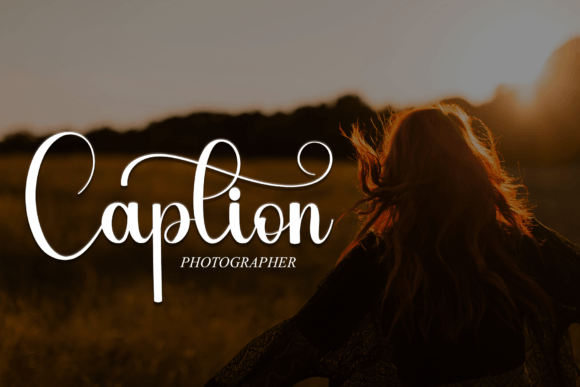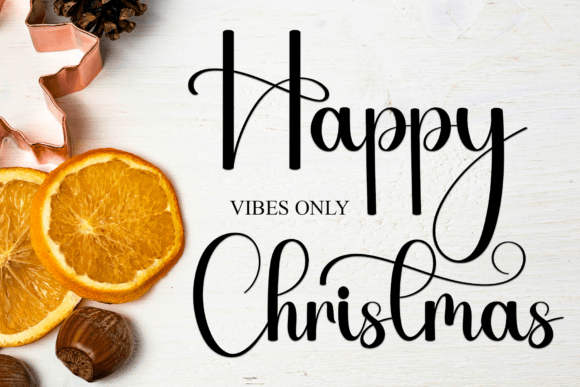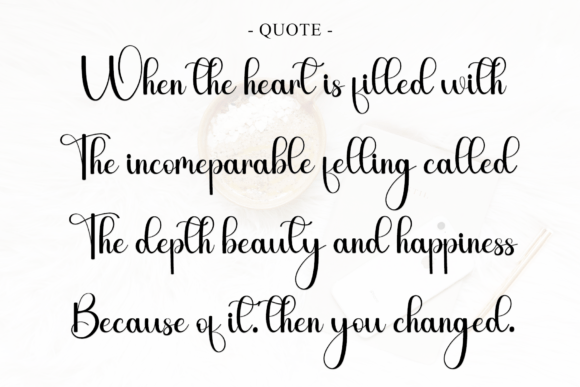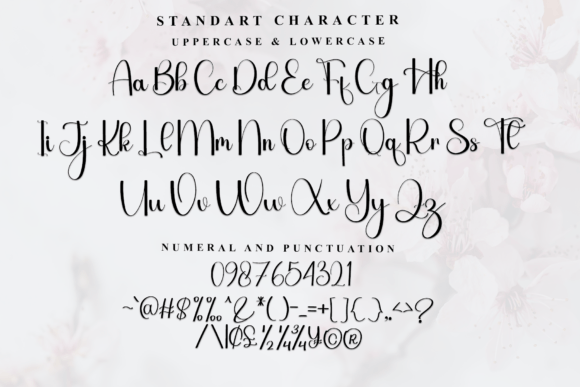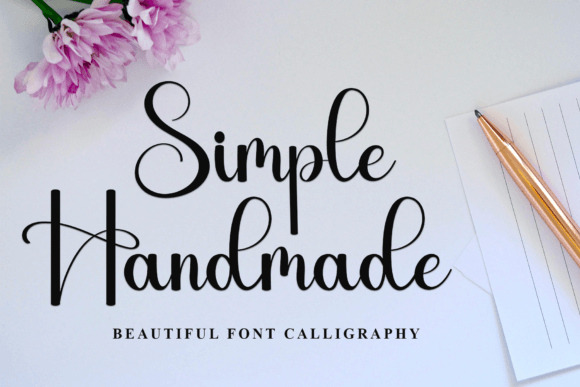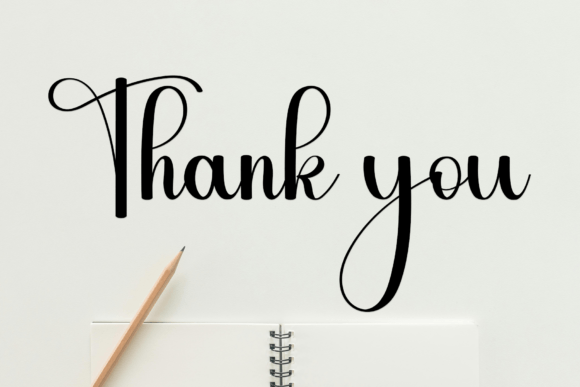
Introducing Christmas Wonderful Font: A Timeless Handwritten Delight
Are you looking for a font that captures the essence of the holiday season? Or perhaps you need a stylish and elegant font for your design projects? Look no further than Christmas Wonderful Font, a lovely and timeless handwritten font that’s perfect for creating eye-catching logos, branding, and quotes.
A Unique and Beautiful Touch
What sets Christmas Wonderful Font apart is its unique and beautiful touch. Every letter has been carefully crafted to bring a sense of warmth and personality to your designs. The font’s handwritten style gives it a personal and approachable feel, making it perfect for designers and crafters who want to add a touch of elegance and sophistication to their work.
Whether you’re a designer, crafter, or DIY enthusiast, Christmas Wonderful Font is the perfect choice for your next project. The font’s versatility makes it suitable for a wide range of applications, including:
- Logos and branding: Create a lasting impression with a custom logo that showcases your brand’s personality.
- Quotes and posters: Add a touch of elegance to your inspirational quotes and posters.
- Stationery and invitations: Create beautiful stationery and invitations that set the tone for any occasion.
- Digital and print media: Use the font in your digital and print media, such as brochures, flyers, and social media graphics.
Why Choose Christmas Wonderful Font?
So why choose Christmas Wonderful Font over other fonts? Here are just a few reasons:
- Unique and beautiful design: The font’s handwritten style and unique touches make it stand out from other fonts.
- Versatility: The font is suitable for a wide range of applications and can be used for both personal and commercial projects.
- Timeless appeal: The font’s classic design ensures it will remain stylish and relevant for years to come.
Tips for Using Christmas Wonderful Font
To get the most out of Christmas Wonderful Font, here are a few tips:
- Experiment with different sizes and colors: The font looks great in a variety of sizes and colors, so don’t be afraid to experiment and find the perfect combination for your design.
- Use the font’s glyphs and ligatures: The font’s glyphs and ligatures can add an extra touch of elegance and sophistication to your designs.
- Pair the font with other fonts: Christmas Wonderful Font pairs well with other fonts, so try combining it with other fonts to create a unique and interesting design.